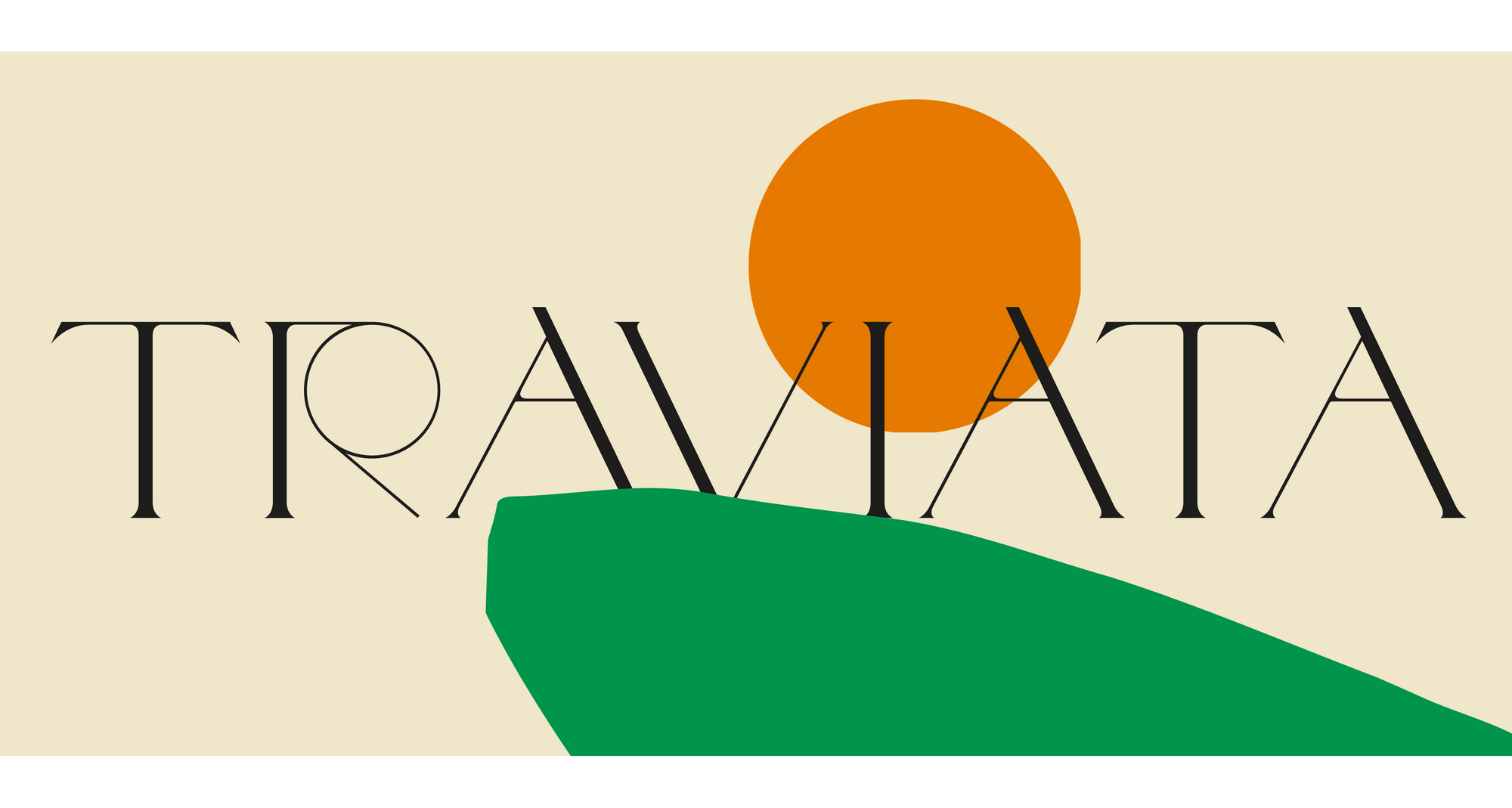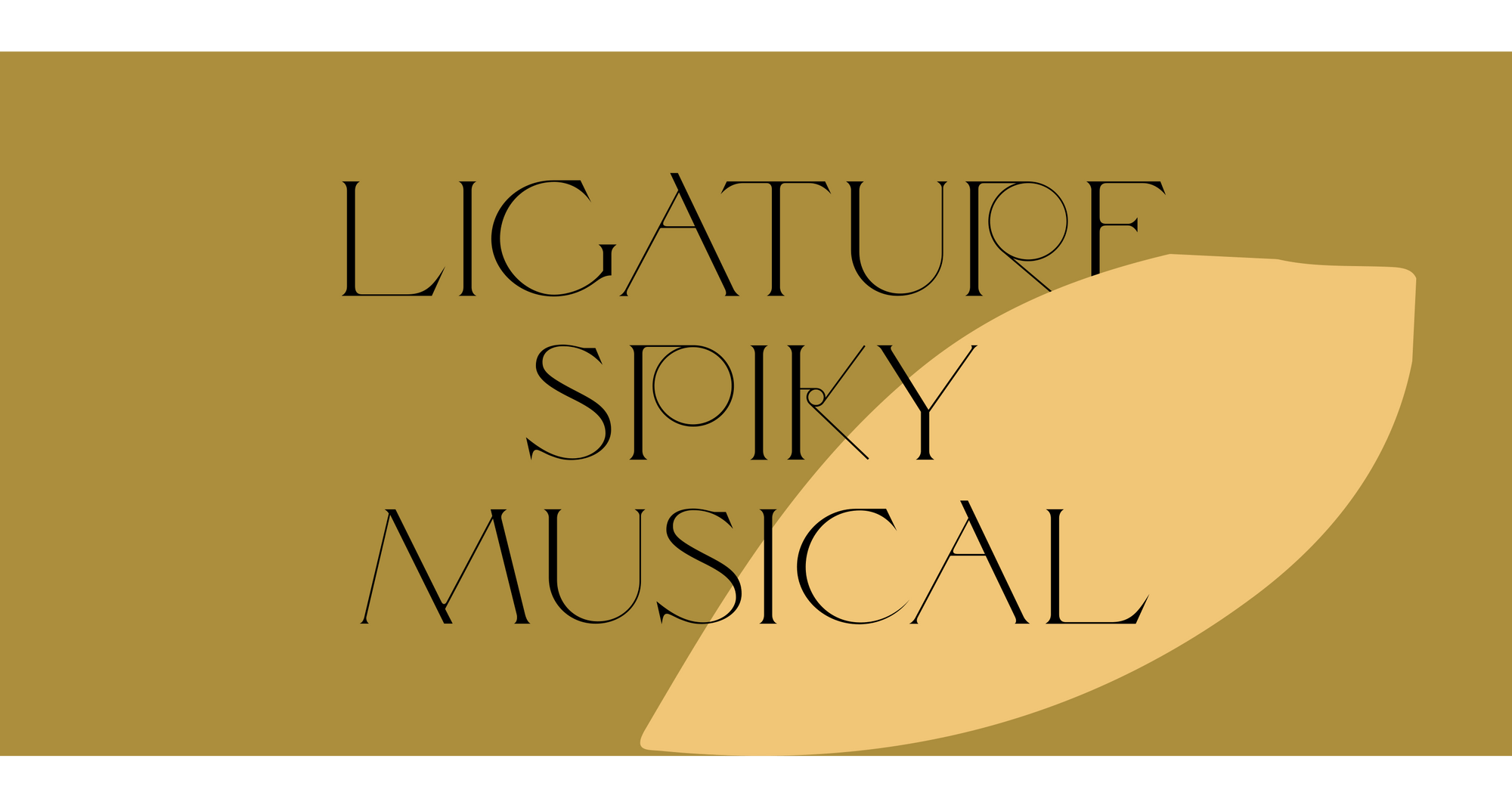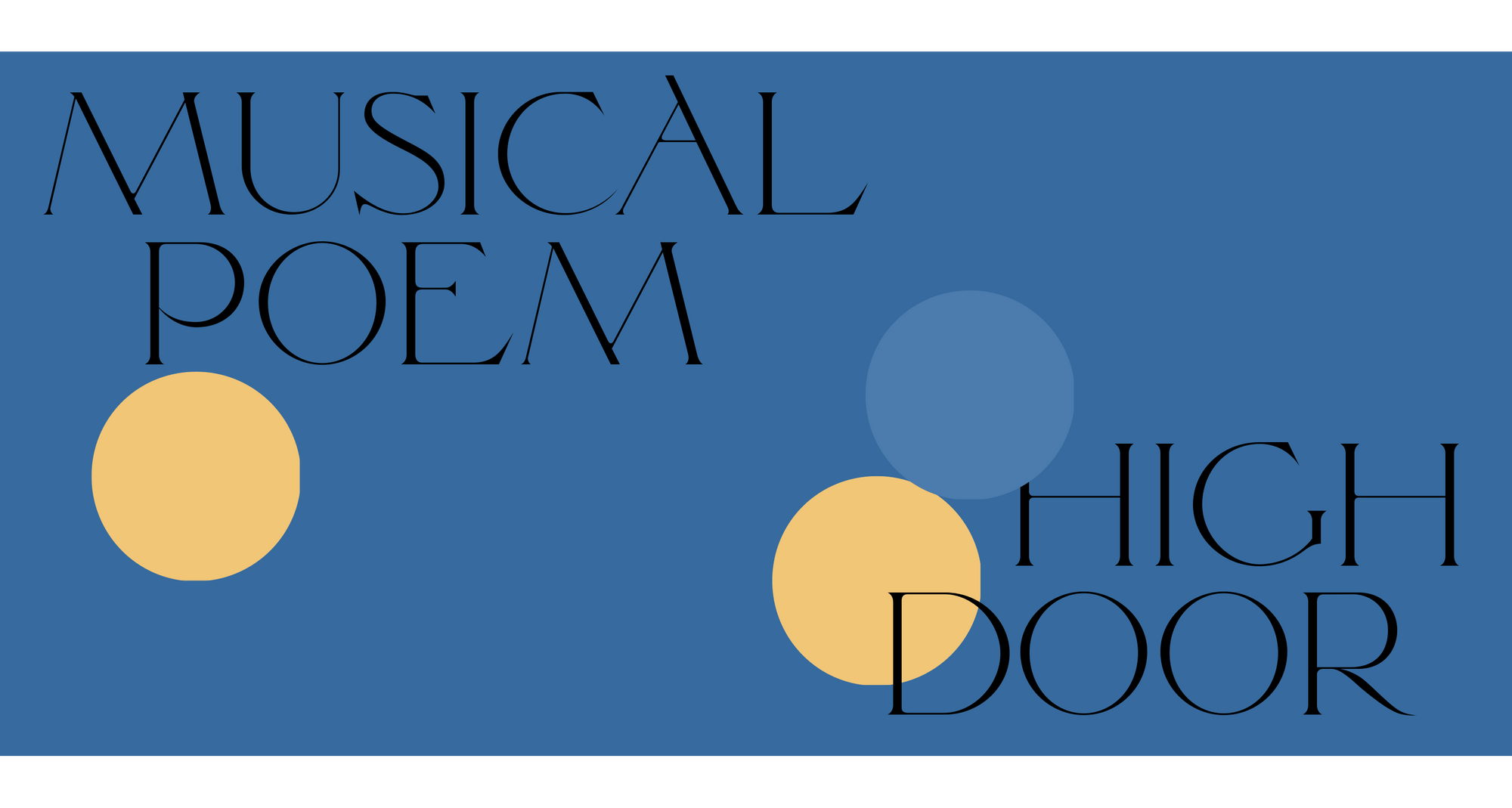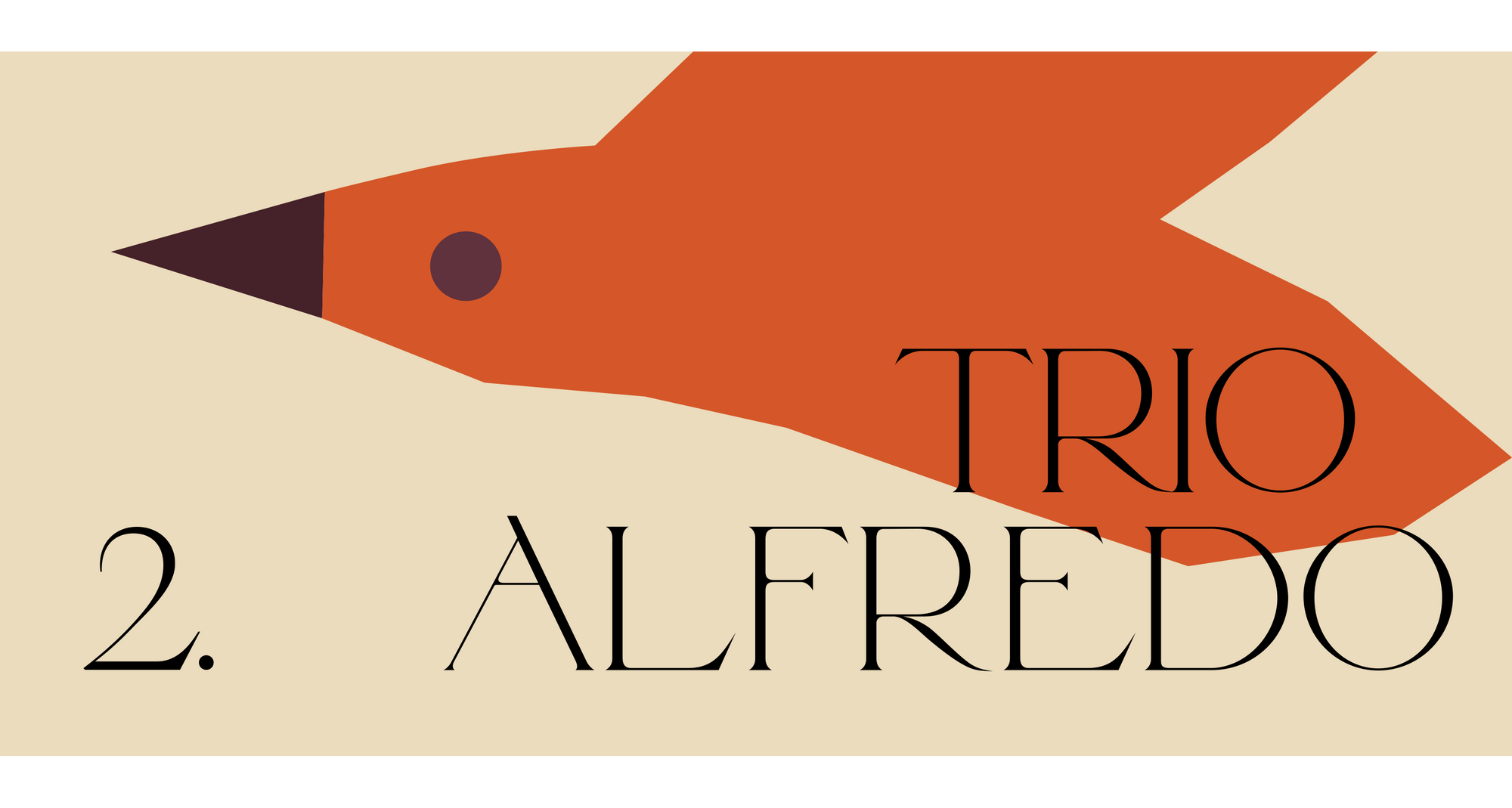
Traviata - Regular
Traviata is a display font released in 2017 by Violaine & Jérémy. Designed for the 2017-2018 identity of the « Théâtre des Bouffes du Nord » in Paris, this font was directly inspired by the adaptation of the play La Traviata by Benjamin Lazar, Florent Hubert and Judith Chemla. Traviata starts with a large classical structure offering shy serifs and becomes an expressive force through its unusual details, such as a long apex and strokes, as well as the mix of a traditional construction and very geometrical shapes. The result is a well-balanced, contrasted and elegant font, perfect for display use, especially with a strong colorful palette.